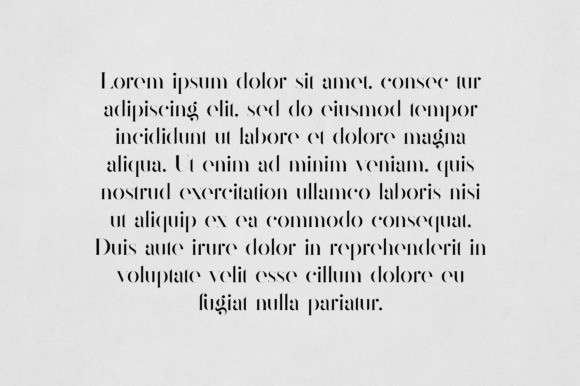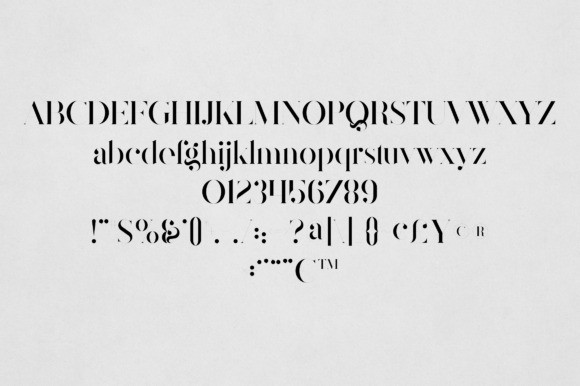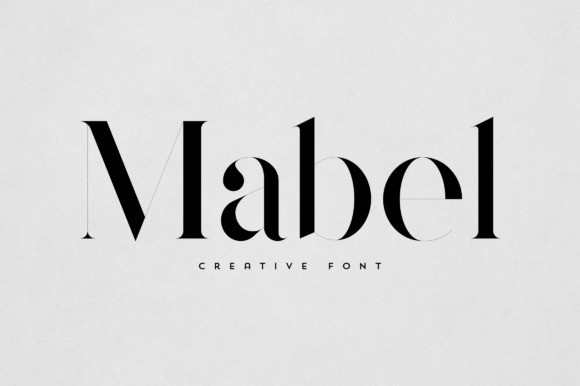
Mabel Font
Mabel Font is an elegant and versatile serif font that will make your typography truly unique! It will enchant every logo, branding, headline, or plain text!